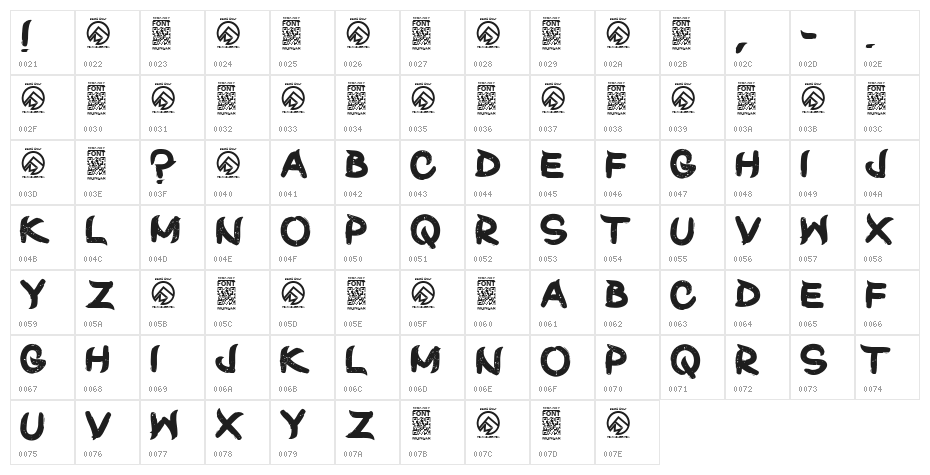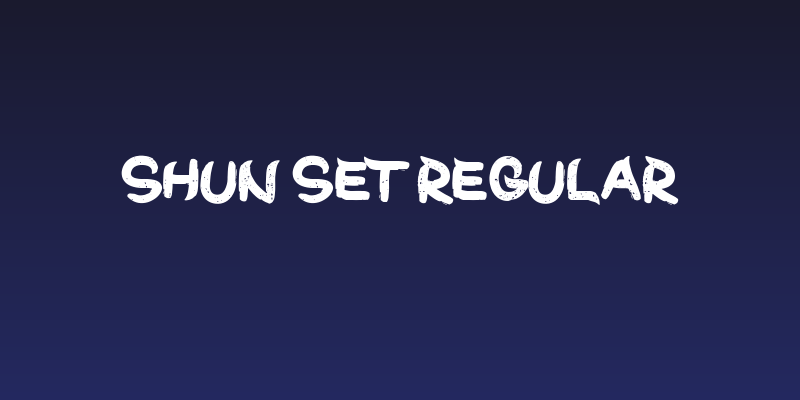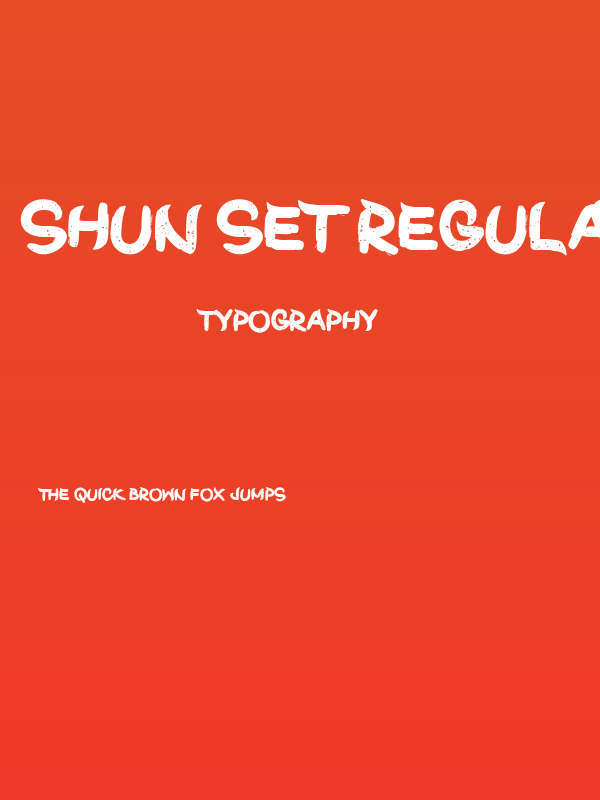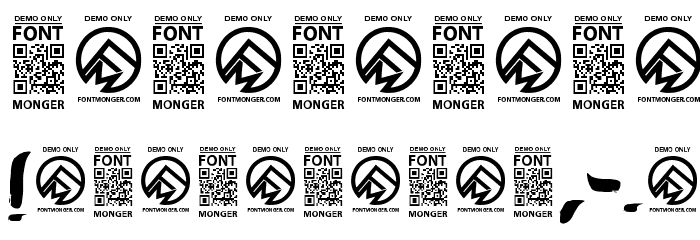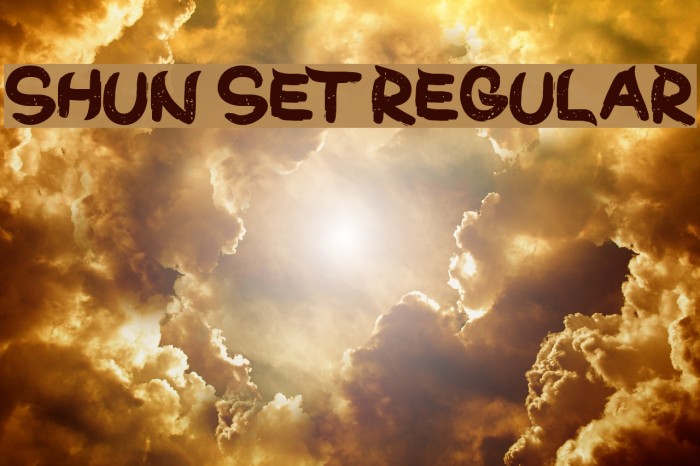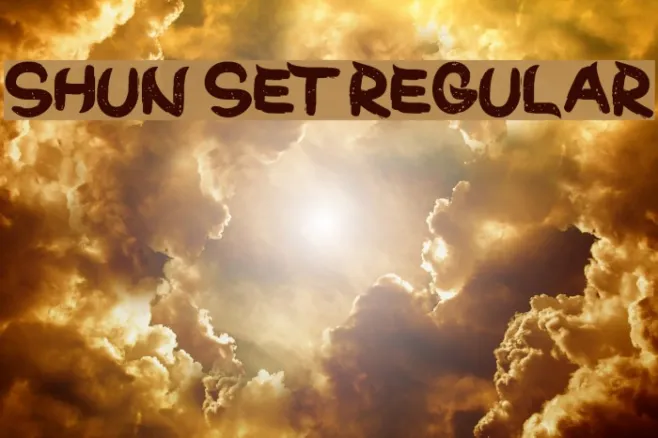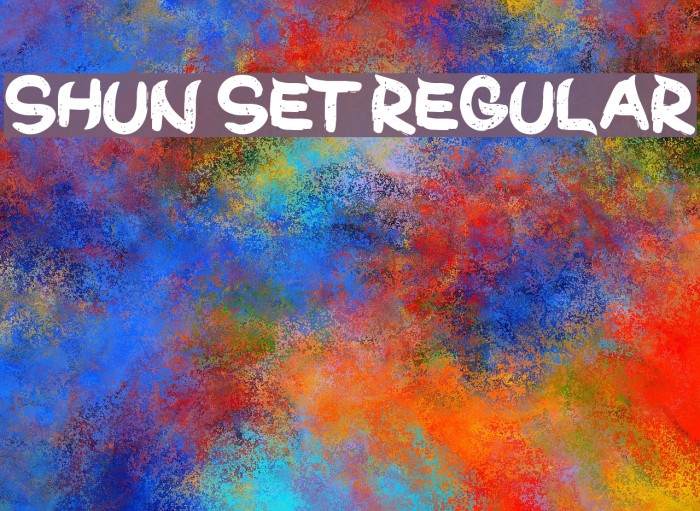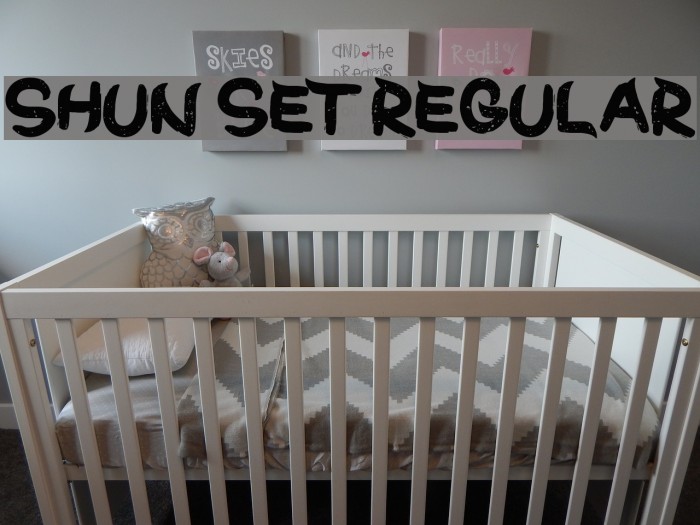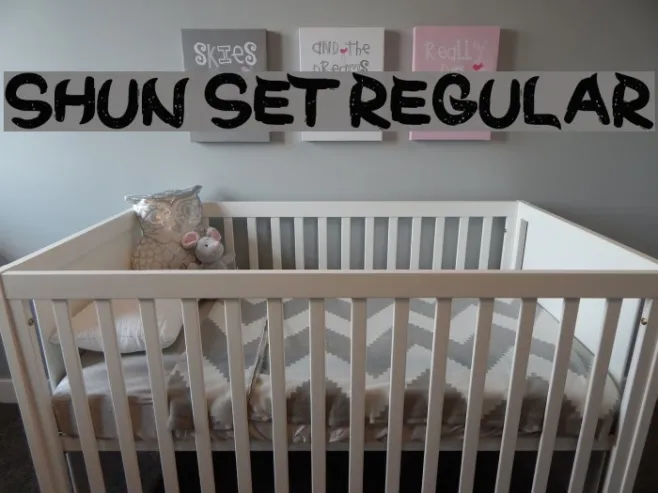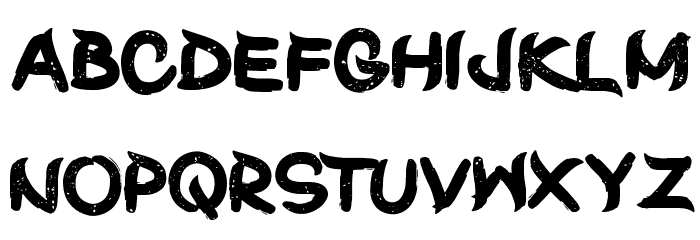
Shun Set Regular Font
Shun Set Regular Description
This font features a bold and dynamic style, characterized by its thick, brush-like strokes and slightly distressed texture. The letters have a hand-painted appearance, giving them a raw and energetic feel. The uppercase and lowercase letters maintain a consistent style, with rounded edges and a playful, informal look. The numbers and special characters follow the same aesthetic, ensuring a cohesive design throughout. This font's unique texture and bold presence make it stand out, ideal for projects that require a strong visual impact.
| Overall Style | Modern, Artistic |
| Proposed Projects | Perfect for posters, branding, merchandise, and any project needing a bold, artistic touch. |